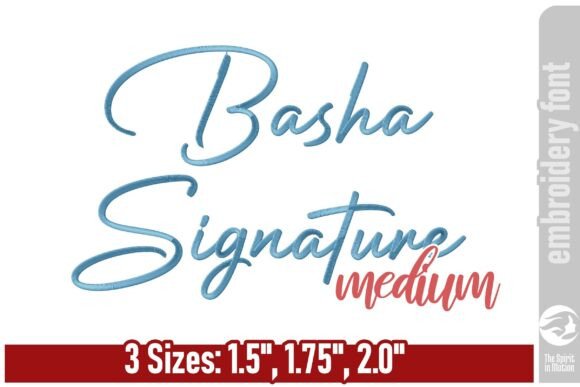
Adenman Posted 14 hours ago Share Posted 14 hours ago Basha is a stylish and modern signature embroidery font that brings a handwritten elegance to your designs. With smooth curves and a natural flow, it’s perfect for adding a personal touch to names, quotes, branding, and gifts. This set includes medium-sized uppercase and lowercase letters, numerals, and basic punctuation symbols—giving you the flexibility to create complete words and custom text layouts with ease. Giveaway Link –> https://www.creativefabrica.com/product/basha-signature-font-medium Quote Link to comment Share on other sites More sharing options...